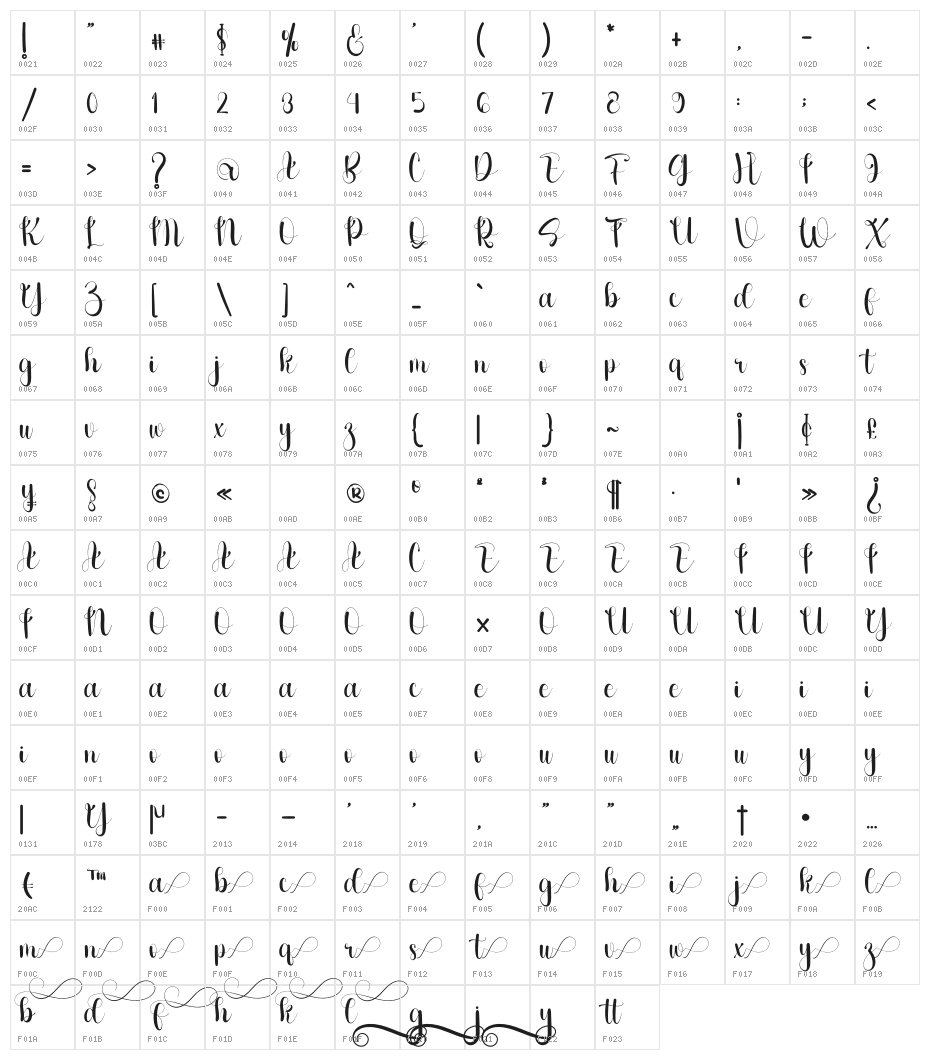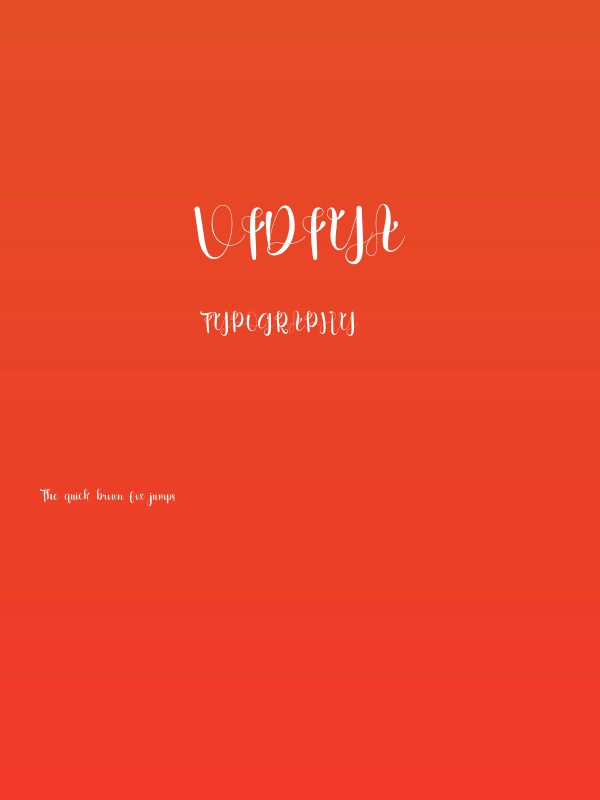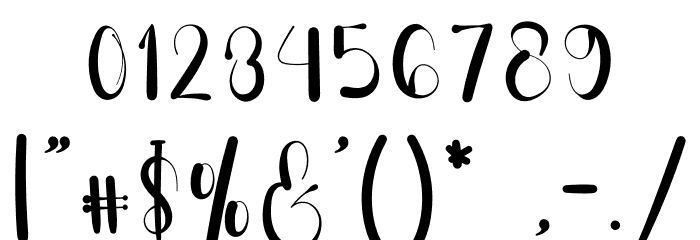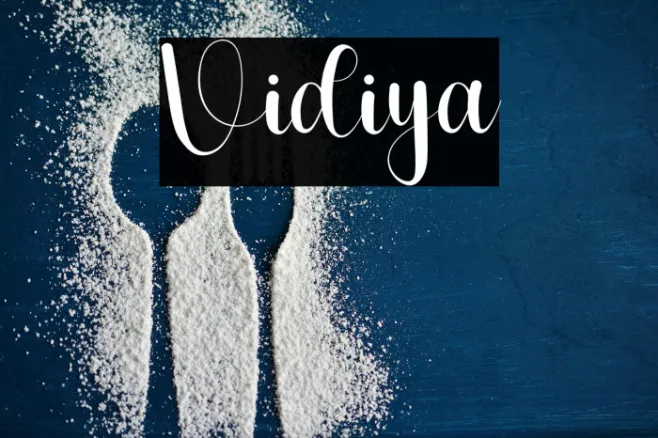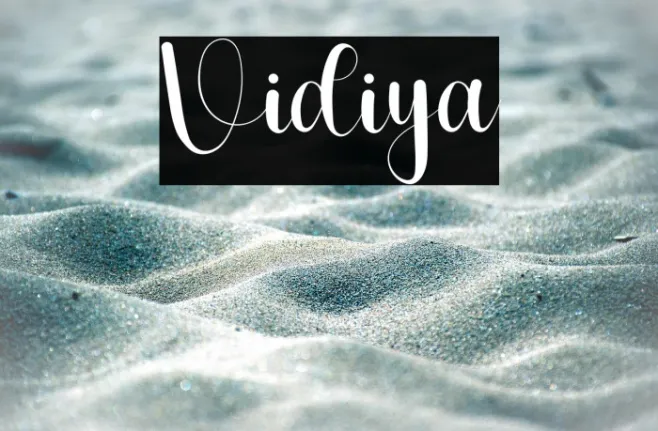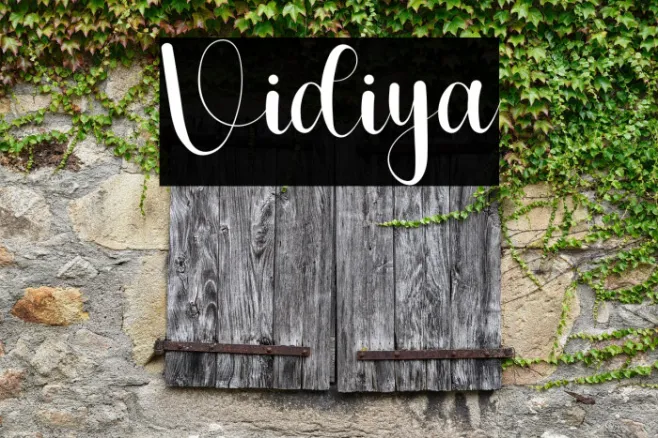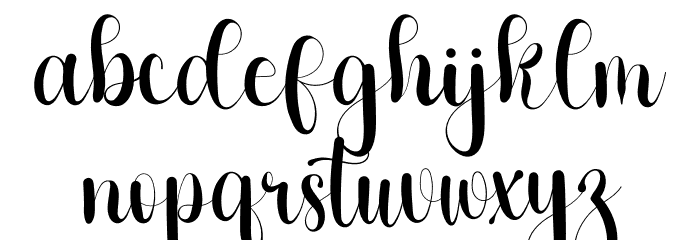
Vidiya Font
Vidiya Description
This font features an elegant and flowing script style, characterized by its smooth, cursive strokes and graceful loops. The uppercase letters are ornate, with sweeping lines that extend beyond the baseline, creating a sense of movement and fluidity. The lowercase letters maintain a consistent style, with rounded forms and delicate connections between characters. The numerals are stylish and maintain the script's overall aesthetic, while the special characters are designed to complement the font's sophisticated look. This font exudes a sense of elegance and charm, making it suitable for formal and decorative applications.
| Proposed Projects | Ideal for wedding invitations, greeting cards, branding, and elegant packaging designs. |